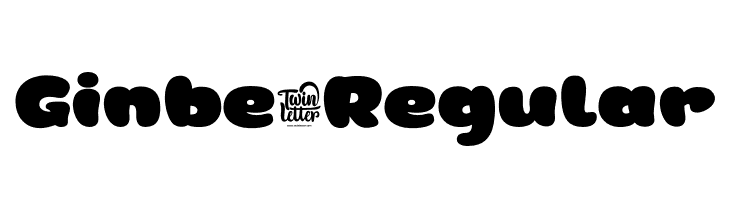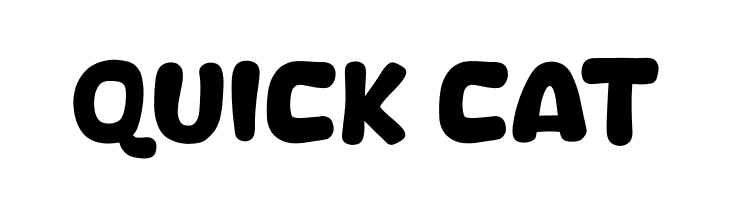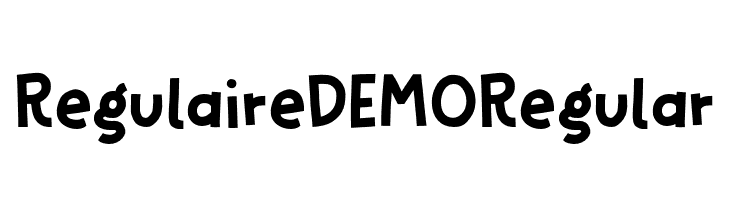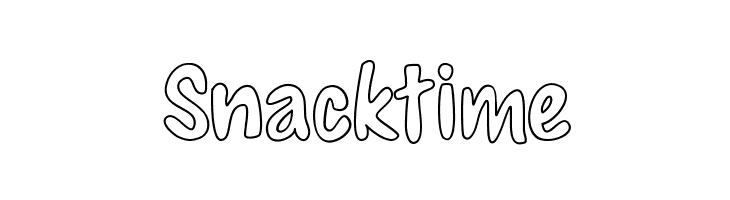
A playful, hand-drawn font with bold, rounded outlines and a whimsical style.
A playful, bold, and hand-drawn font with a cartoonish style.
A playful, bold font with a hand-drawn, cartoonish style.
A bold, rounded font with a playful, comic-like style.
A playful, hand-drawn font with bold, rounded characters and whimsical elements.
A bold, playful font with rounded, irregular shapes and a whimsical style.
A bold, playful font with a hand-drawn, friendly appearance.
A bold, playful font with rounded, exaggerated shapes and a whimsical style.
A bold, playful typeface with rounded, bubbly characters and a whimsical style.
A playful, bold font with quirky, angular characters.